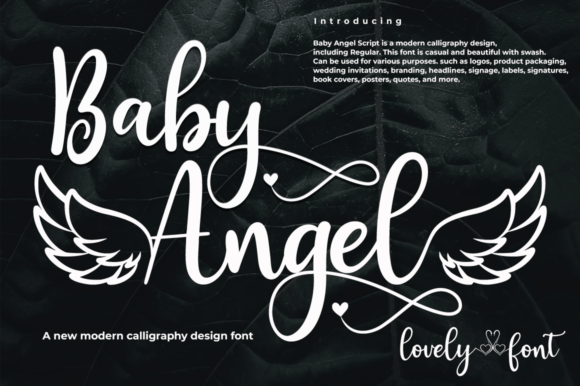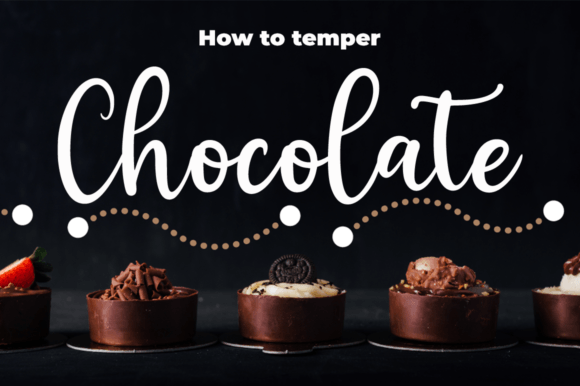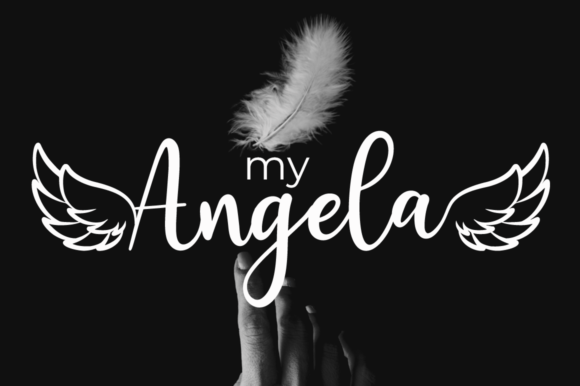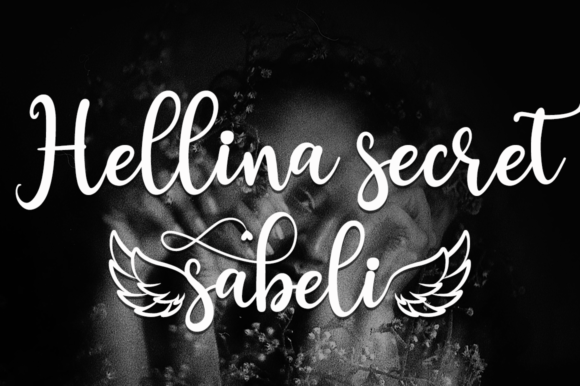
Baby Angel Font: Elegant Calligraphy Script for Wedding Invitations
About the Baby Angel Font
Introducing the Baby Angel Font, a beautifully crafted typeface designed to elevate your creative projects. Experience the charm and beauty of Baby Angel Script, a contemporary font choice steeped in elegance. Baby Angel Script is more than just a modern calligraphy design, it’s a wisp of casual sophistication wrapped in an awe-inspiring swash. It is wonderfully versatile and perfect to enhance any virtual canvas – be it logos or product packaging, wedding invitations or captivating branding, attention-grabbing headlines or distinctive signage.
Baby Angel Script’s elegant yet casual nature makes it ideal for branding projects requiring a touch of sophistication, particularly logos, short headlines, and packaging for high-end products or boutique brands. It also works well for wedding invitations and short, impactful marketing materials. However, its delicate strokes and swashes make it unsuitable for body text or lengthy paragraphs; readability would suffer significantly.
Consider pairing Baby Angel Script with a clean sans-serif like Lato for a modern contrast, or a classic serif such as Garamond for a more traditional feel. For a bolder statement, a geometric sans-serif like Montserrat could provide a striking counterpoint. Avoid pairing it with other script fonts, as this can create visual clutter and reduce legibility.
The overall personality is one of refined playfulness; it’s sophisticated yet approachable, lending itself to brands that wish to communicate both elegance and approachability.
Baby Angel Font Usage Examples
Baby Angel Font Example